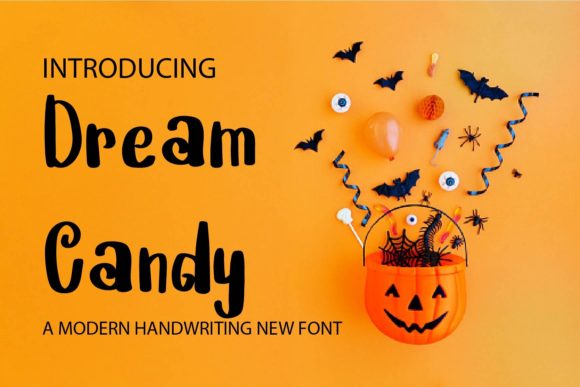
Feast your eyes on Dream Candy Font, a playful and enchanting creation from morningmondayy. This script font embodies whimsy and charm, effortlessly capturing the essence of captivating movie titles that transport you to fantastical worlds. With its enchanting curves and jovial spirit, Dream Candy Font is your secret weapon to unleash your creativity and leave an unforgettable impression.
Imagine your movie titles adorned with the magic of Dream Candy Font. Its playful strokes evoke a sense of wonder and ignite the imagination. Let the whimsical characters dance across your screen and draw viewers into the heart of your cinematic masterpiece. Dream Candy Font is more than just a font; it's a portal to a realm where dreams take flight and stories come alive.
Delve into the versatility of Dream Candy Font. Its delightful personality shines in book texts, documentation, business reports, correspondence, magazines, newspapers, posters, advertisements, multimedia, and corporate design. With Dream Candy Font as your creative companion, your words will dance off the page, captivating audiences and leaving a lasting impact.
Unleash your artistic flair and embrace the magic of Dream Candy Font. Its charming nature pairs perfectly with illustrations and design elements, creating a cohesive and visually stunning experience. Let your imagination soar as you craft designs that exude personality and warmth.